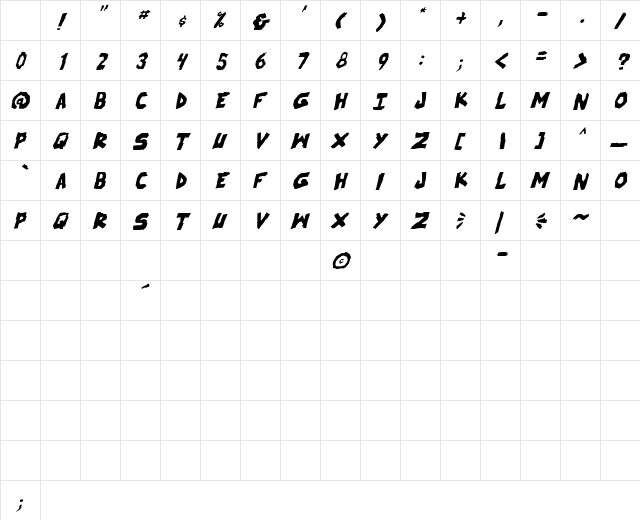
skrunch is a composed and adaptable typeface that performs quietly and consistently across a wide range of design contexts. The slanted form adds forward momentum and visual energy.